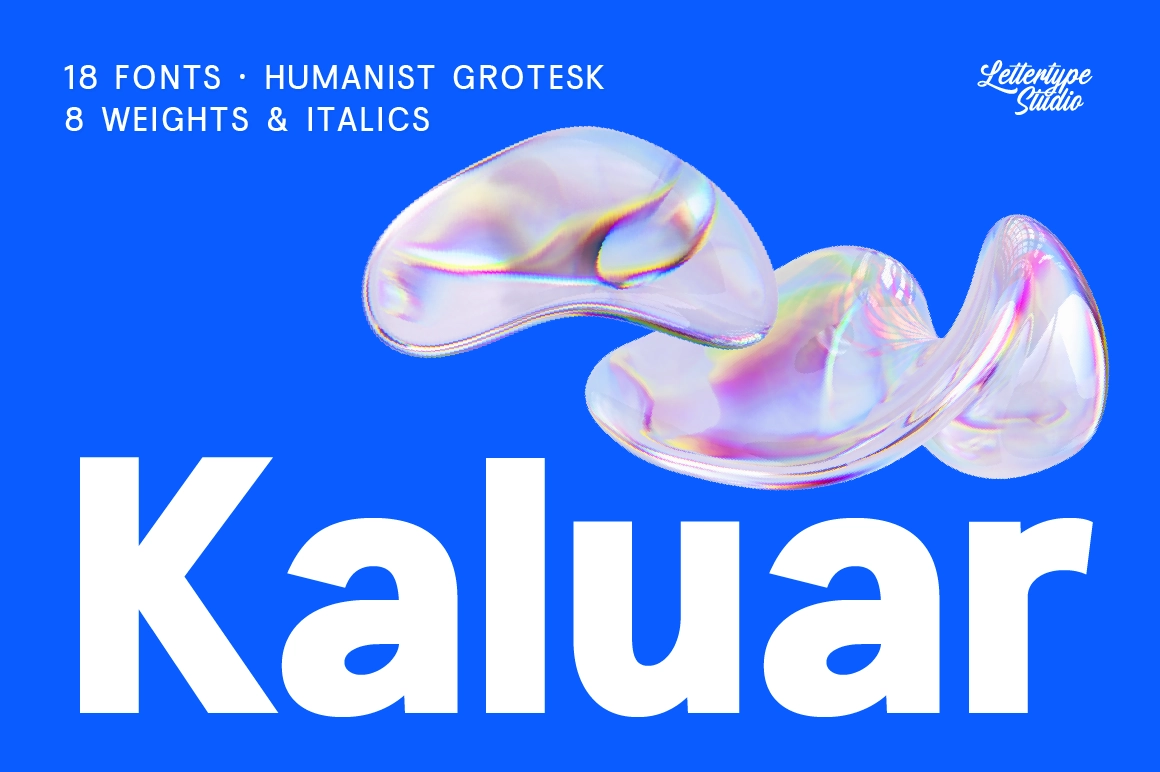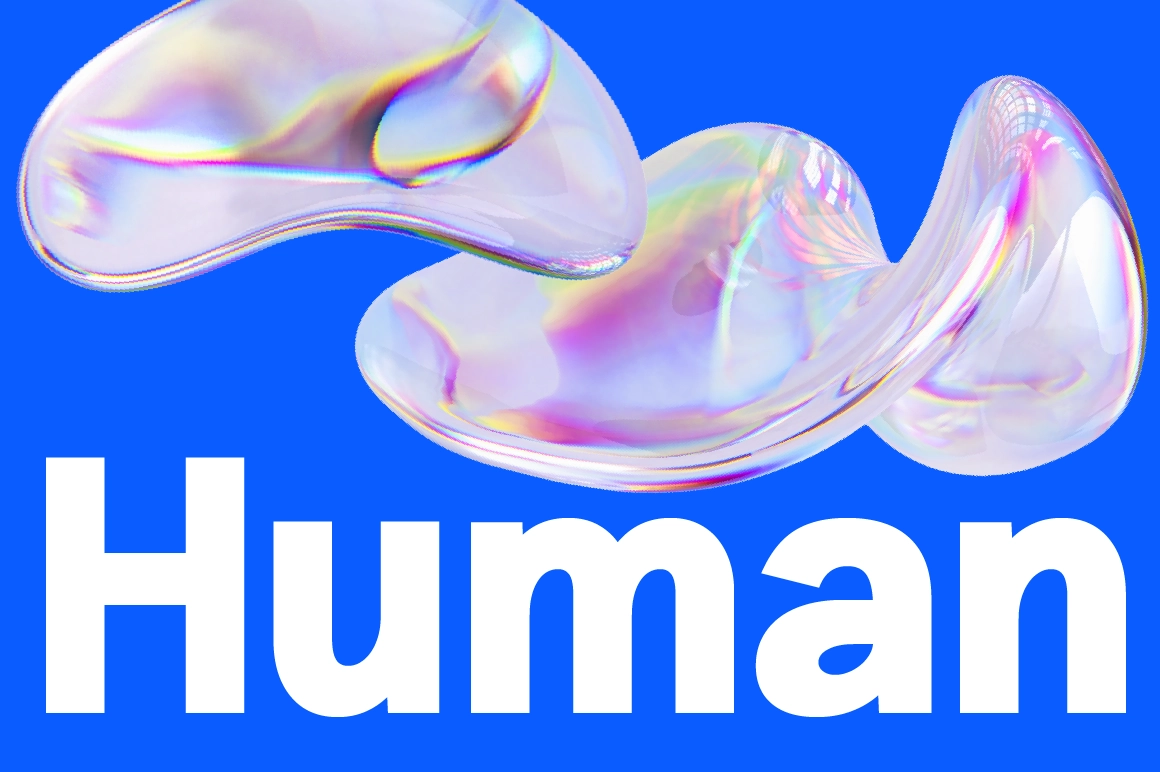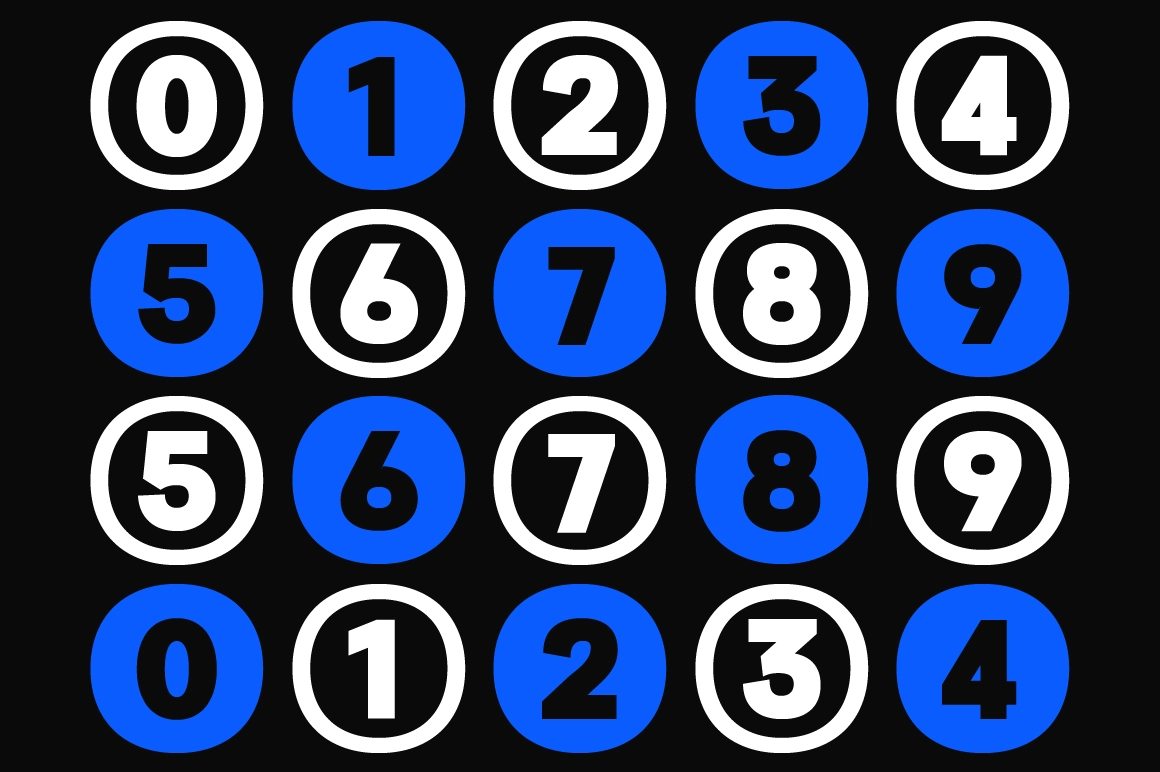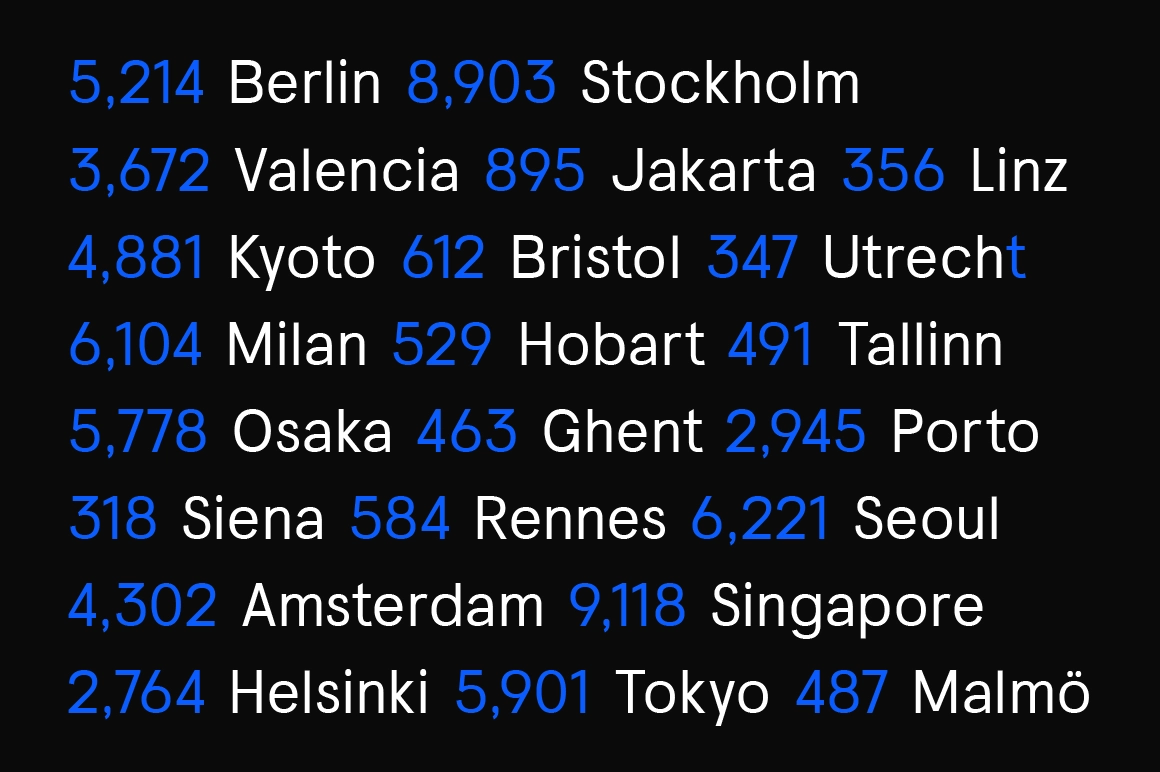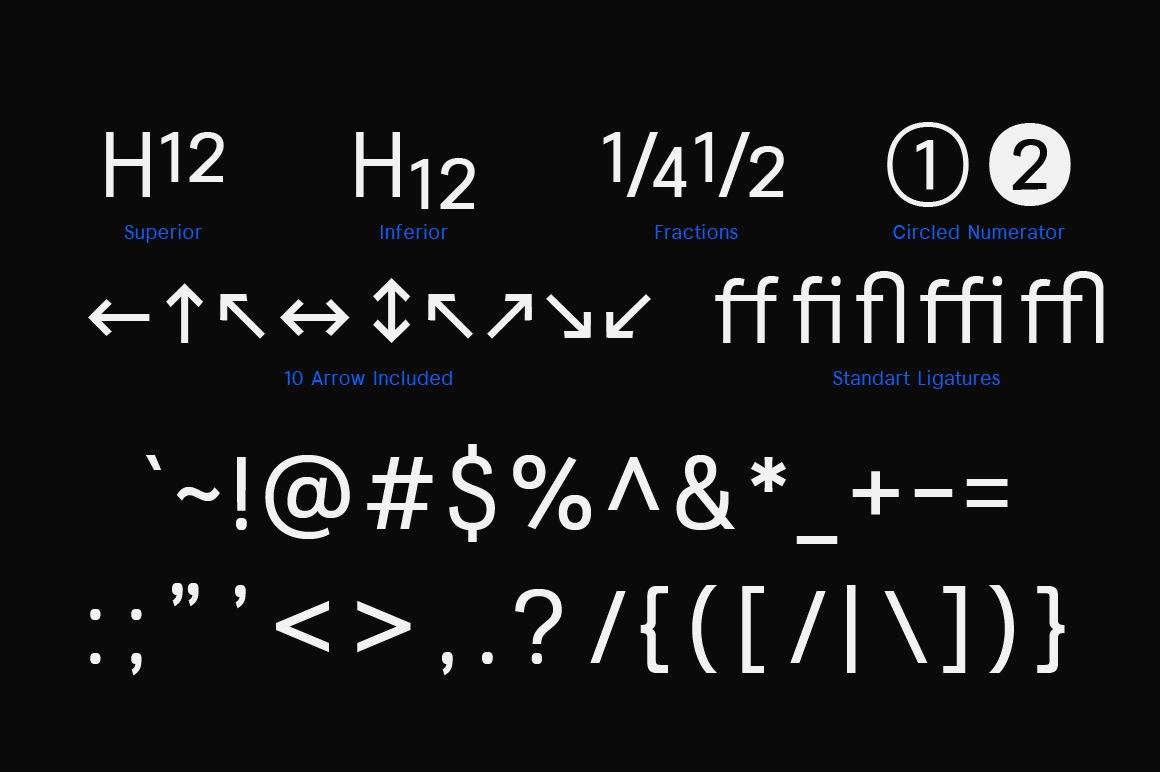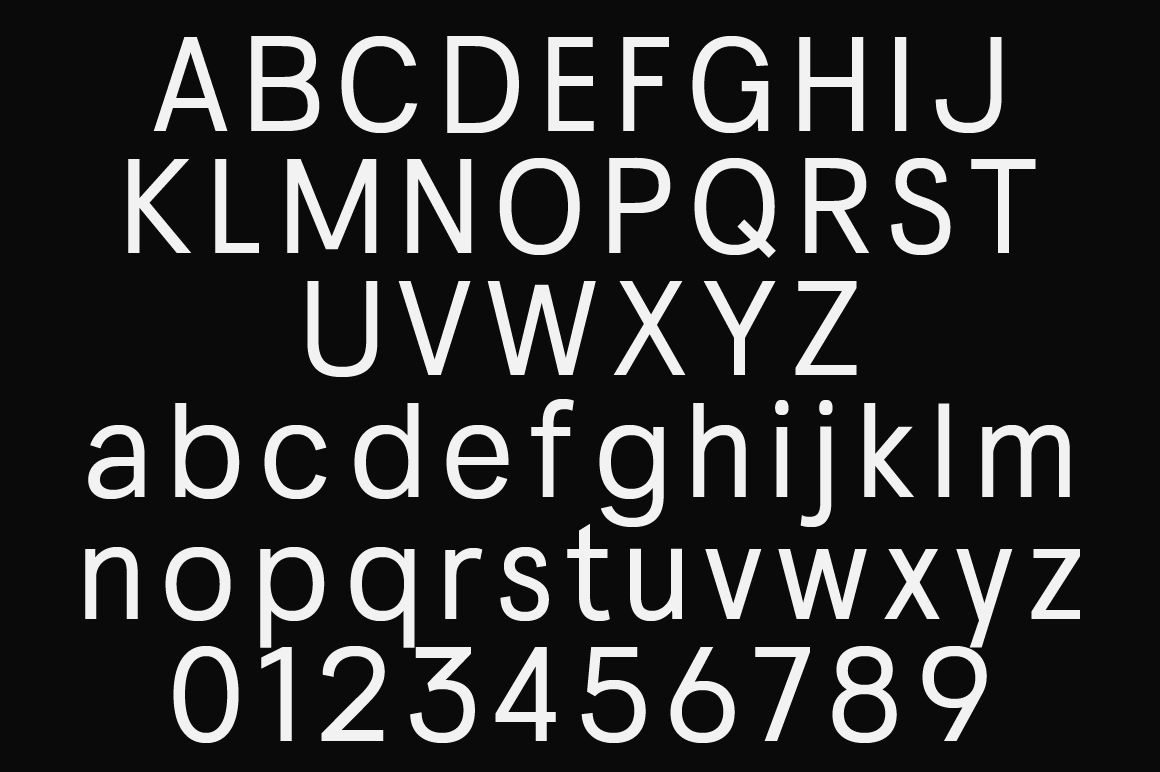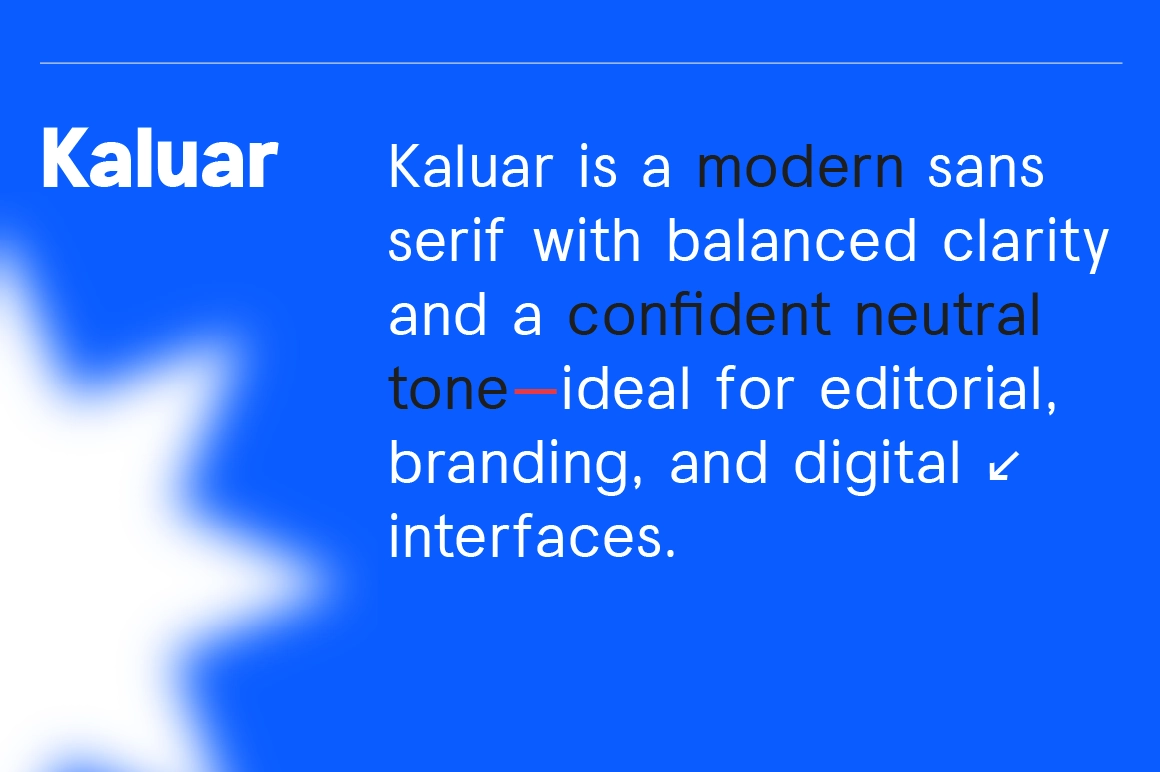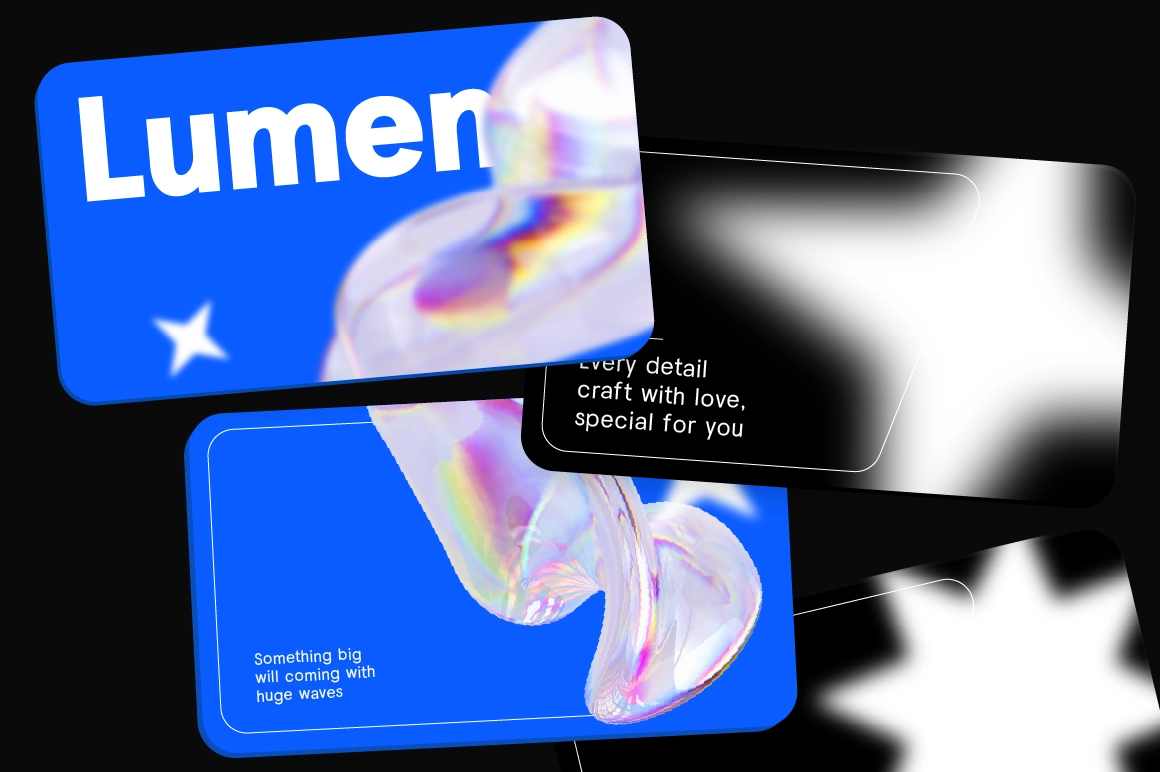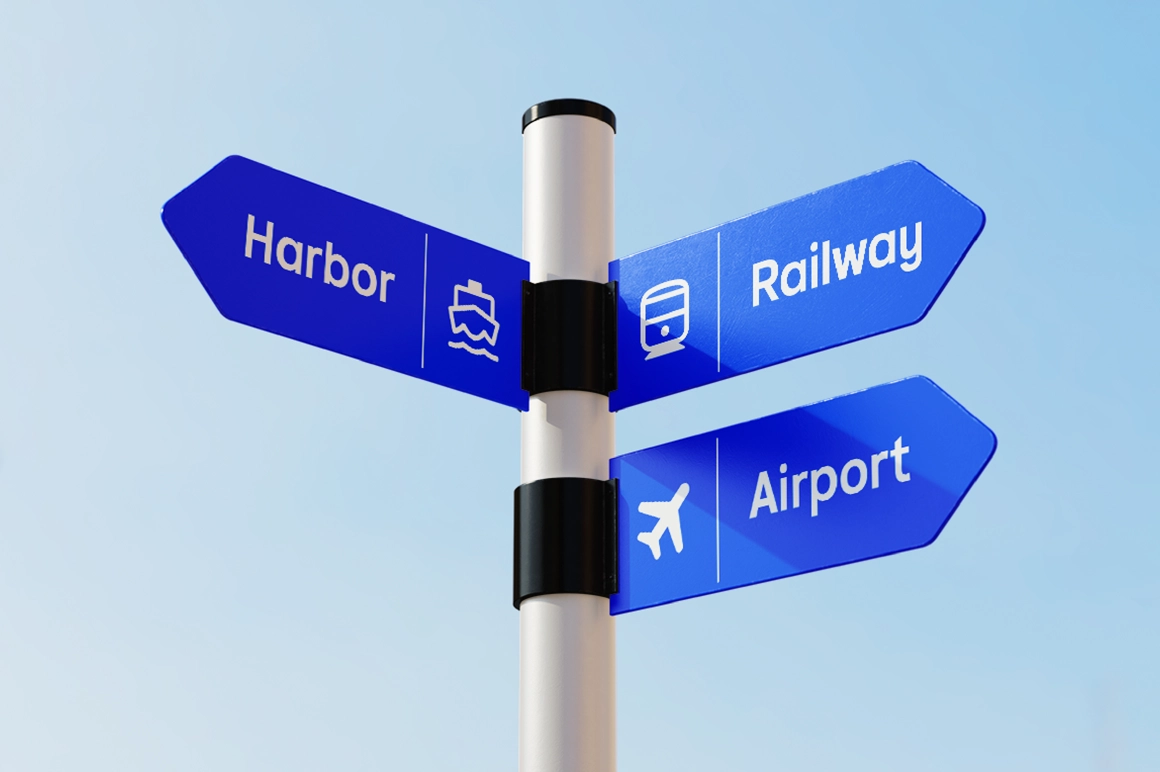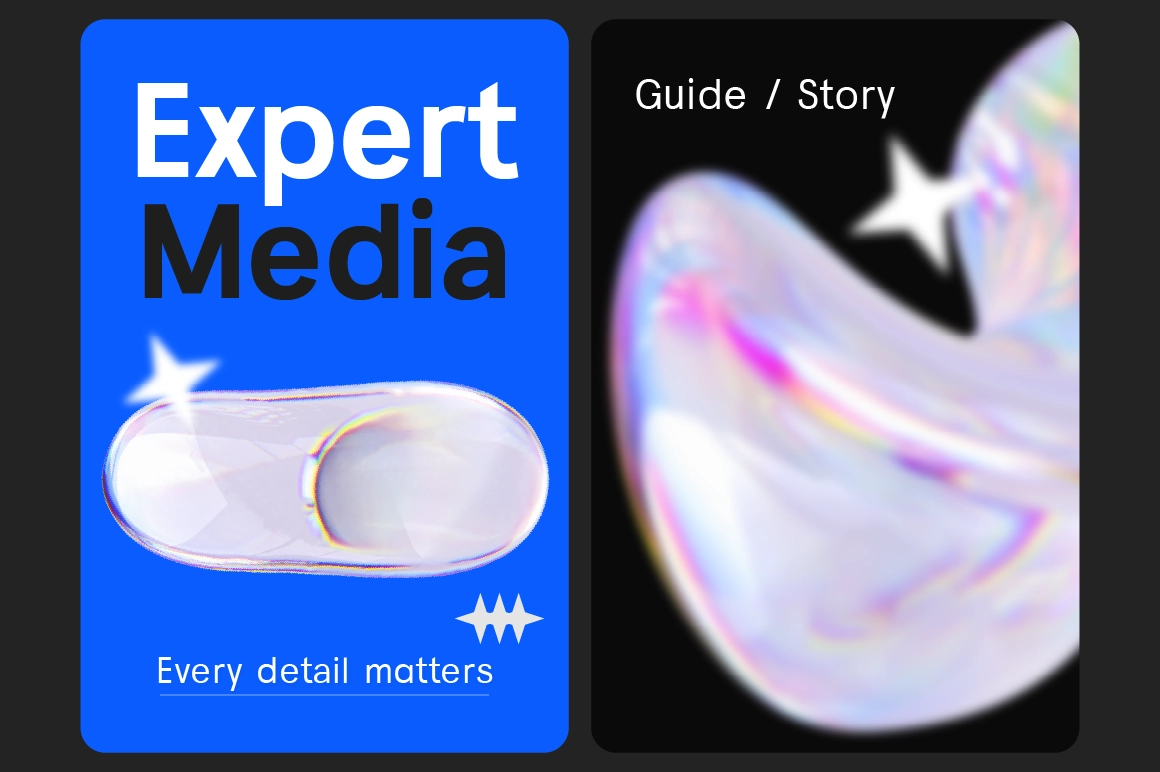
Kaluar is a versatile sans-serif typeface developed with a hybrid humanist–grotesk approach. The design emphasizes functional clarity while preserving subtle organic qualities, making it adaptable to both editorial and digital use cases without leaning into extreme stylistic expression.
The family includes 18 styles, ranging from Thin to Black with matching italics, providing flexible typographic hierarchy for complex layouts. With a total of 506 glyphs, Kaluar supports advanced typographic needs, including superior and inferior numerals, circled and negative circled numbers, and a curated set of extra currency symbols.
Additional character depth is provided through alternate forms for a, g, y, P, and R, allowing designers to fine-tune tone and personality within consistent typographic systems. Optimized for web and desktop workflows, Kaluar performs reliably across branding, editorial, UI, and variable font implementations.
Kaluar Features:
• 18 Fonts
• Upright & Italic
• Alternates: a, g, y, s, P & R (ss01) & Extra Currency (฿,₭, ₱, ₸, ₹, ₺, & ₽)
• Extra glyphs: circled numerals ①–⑩ & arrows (← ↑ → ↓ ↔ ↕ ↖ ↗ ↘ ↙)
• 507 Glyphs Total
• 270+ Languages Support
Perfect For:
• Editorial design and long-form reading
• Branding systems and corporate identity
• UI/UX interfaces and digital products
• Web typography and variable font usage
• Professional publications and design systems